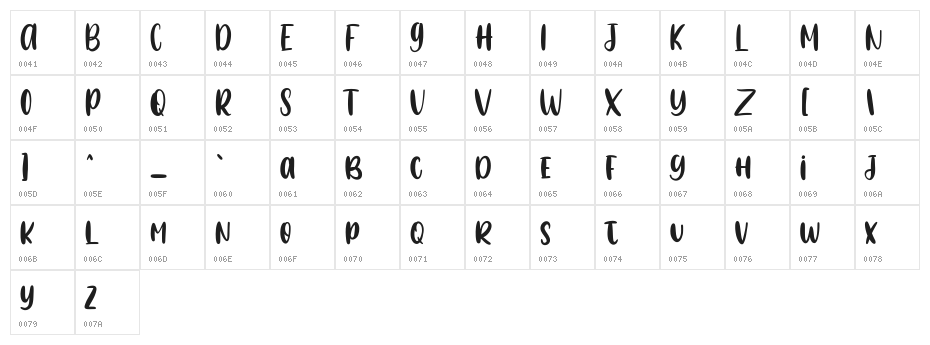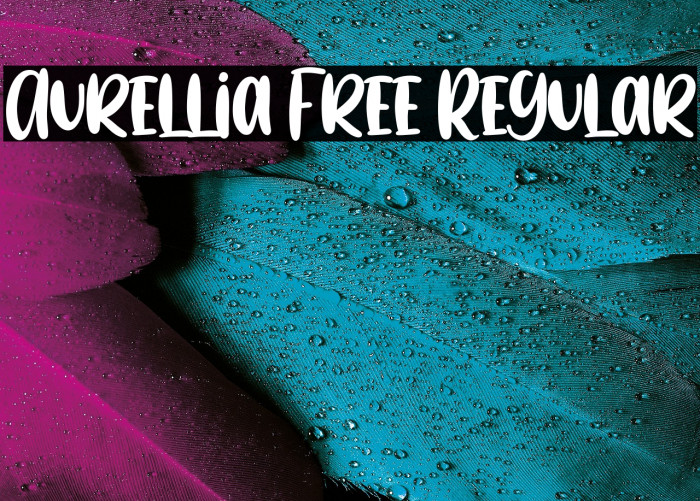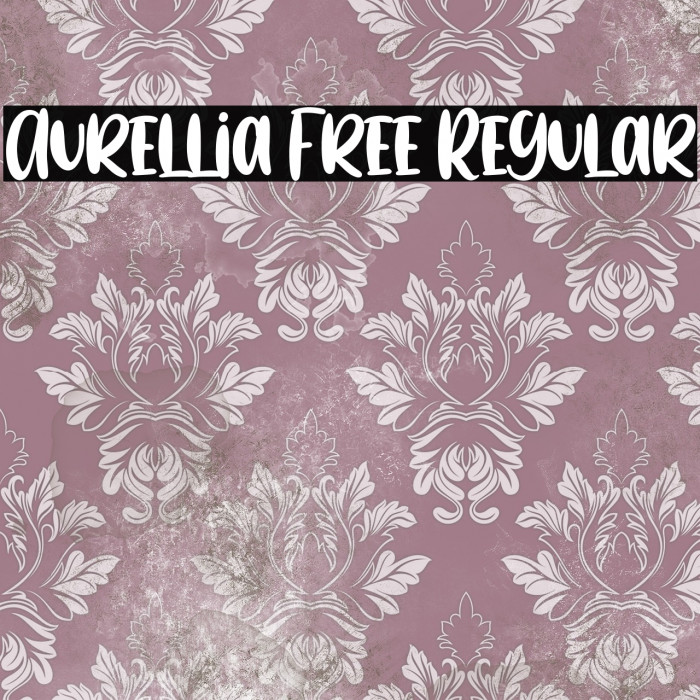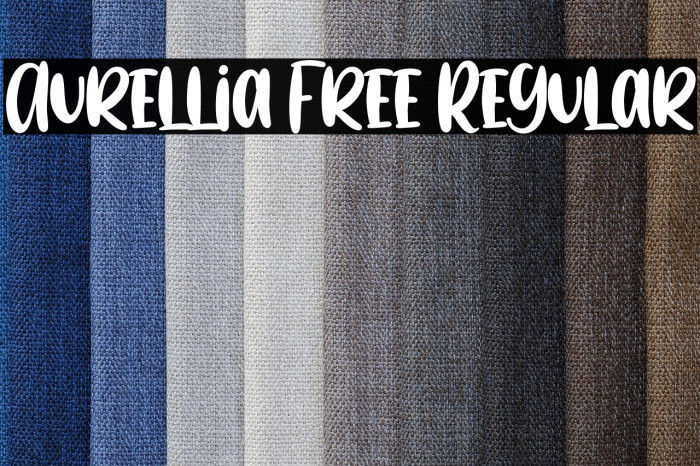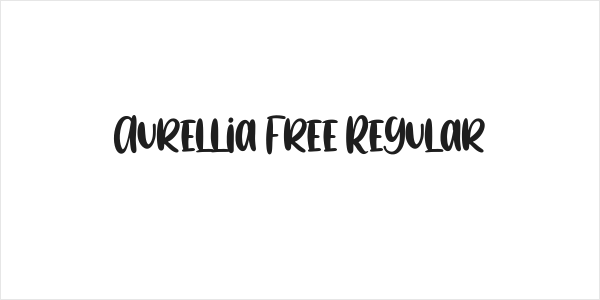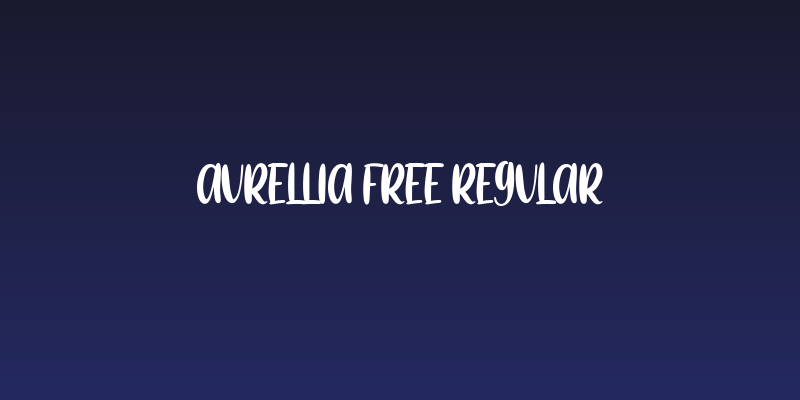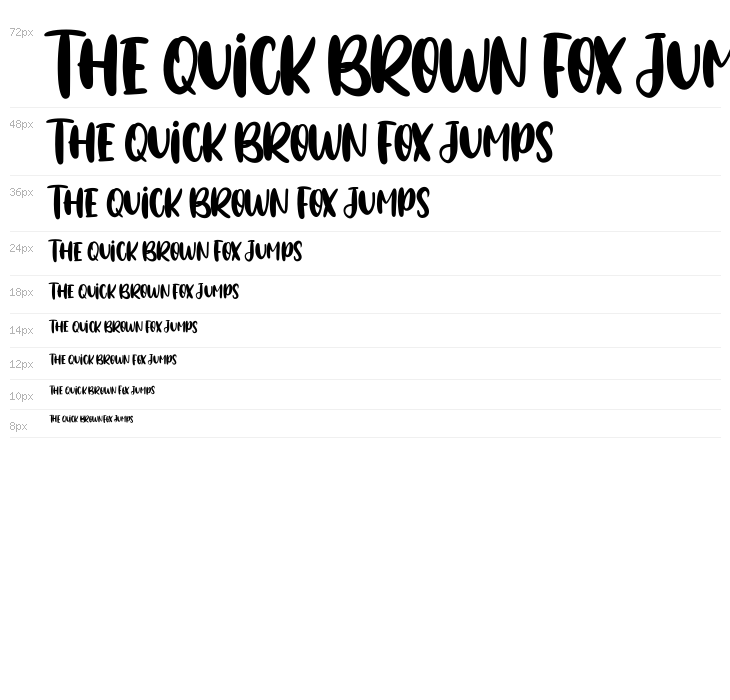
Aurellia Free Regular Font
Aurellia Free Regular Description
This font features a bold and playful handwritten style with smooth, flowing curves and a lively character. The letters are slightly slanted, giving a casual and friendly appearance. The strokes are thick and consistent, providing a strong visual impact. The uppercase and lowercase letters maintain a cohesive look, with rounded edges and a consistent baseline. This font is ideal for projects that require a personal touch, such as invitations, greeting cards, or branding materials. Its boldness ensures readability while adding a touch of whimsy.
| Overall Style | Playful, Casual |
| Proposed Projects | Ideal for invitations, greeting cards, branding materials, and playful designs. |